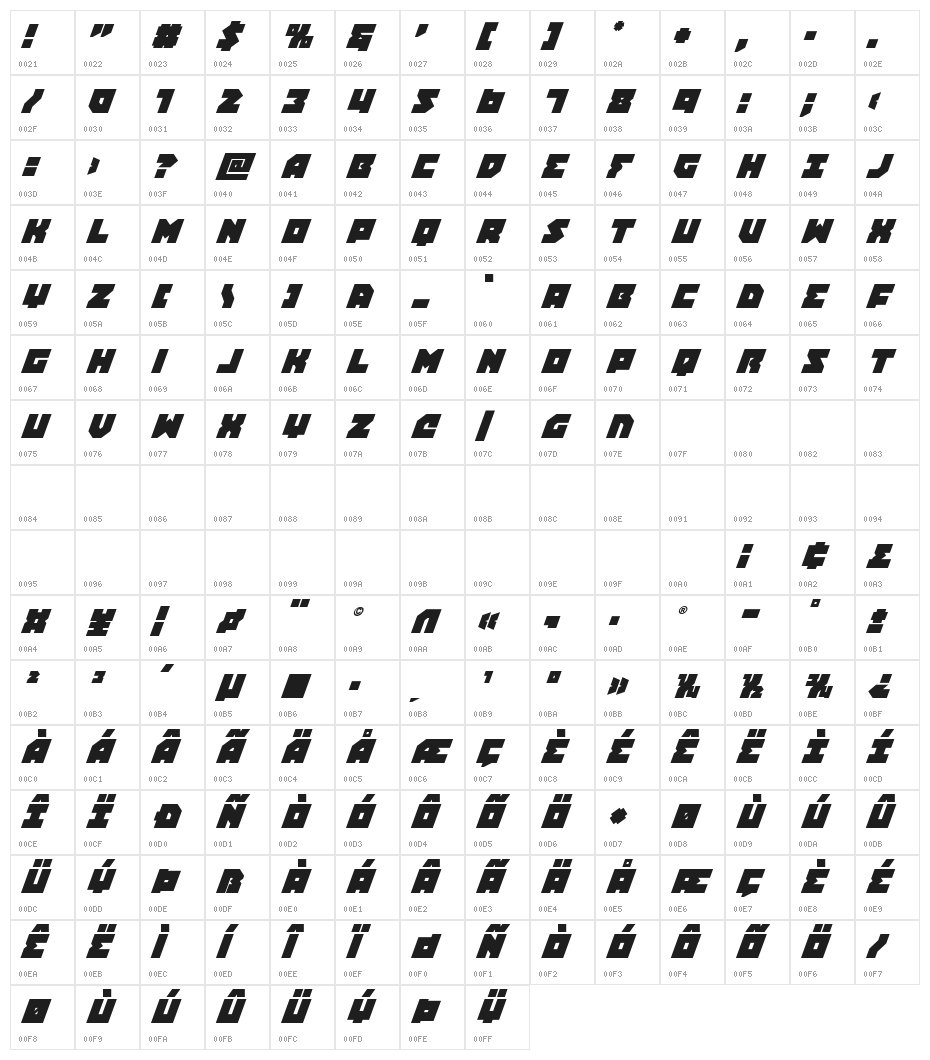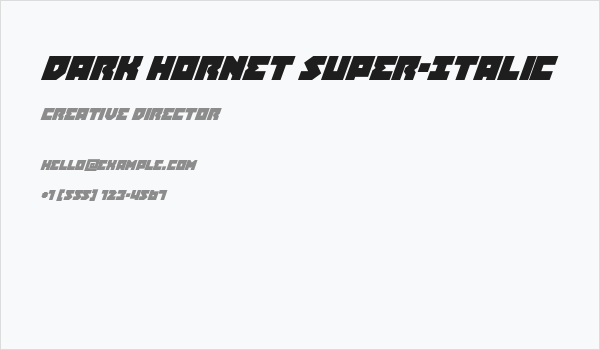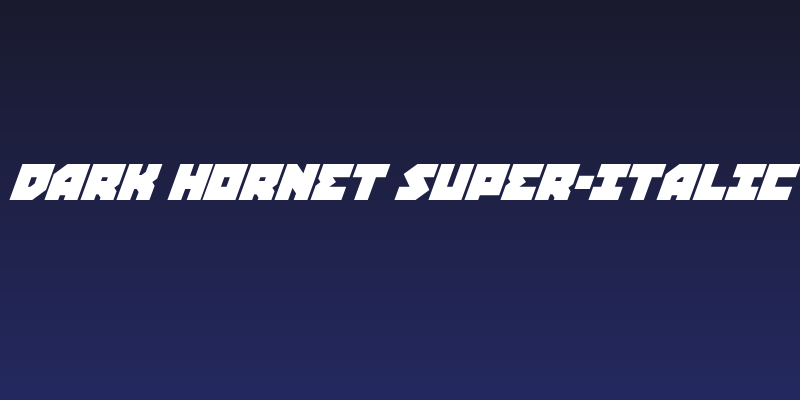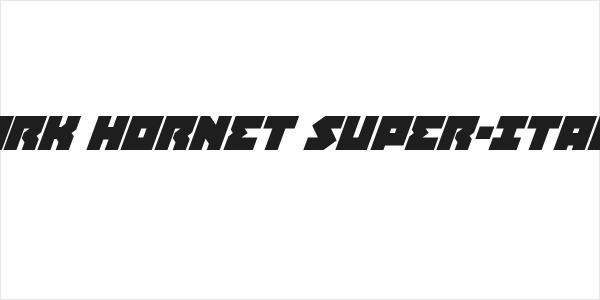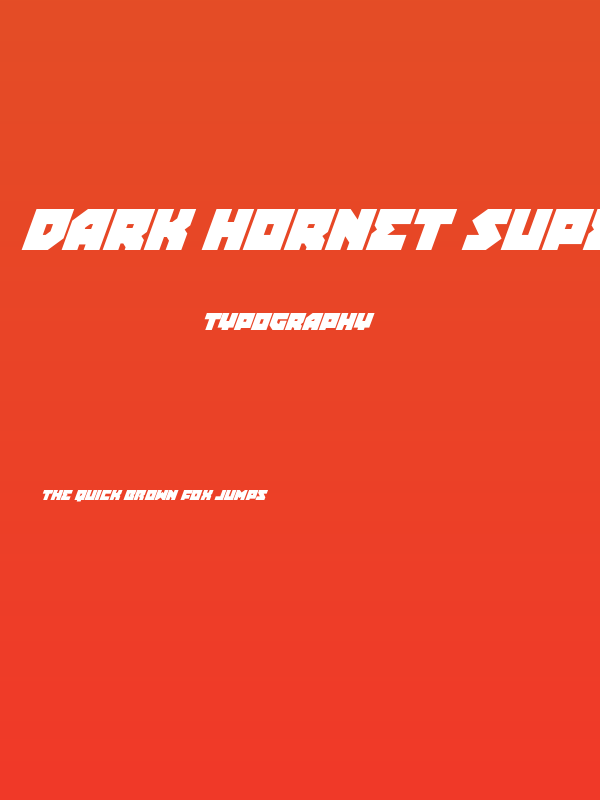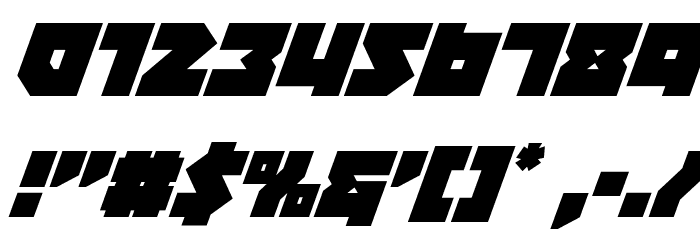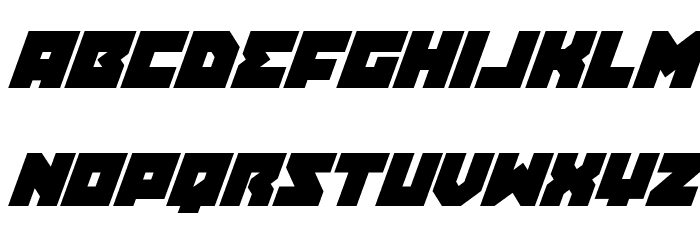
Dark Hornet Super-Italic Font
Dark Hornet Super-Italic Description
This font features a bold and dynamic design with sharp, angular edges and a strong italic slant. The characters are tightly spaced, enhancing its aggressive and energetic appearance. The uppercase and lowercase letters maintain a consistent style, with exaggerated geometric forms that create a sense of movement. The numbers and special characters follow the same design principles, ensuring uniformity across all glyphs. This font's high contrast and thick strokes make it highly visible and impactful, suitable for attention-grabbing designs.
| Proposed Projects | Ideal for sports branding, action movie posters, video game titles, and dynamic logo designs. |